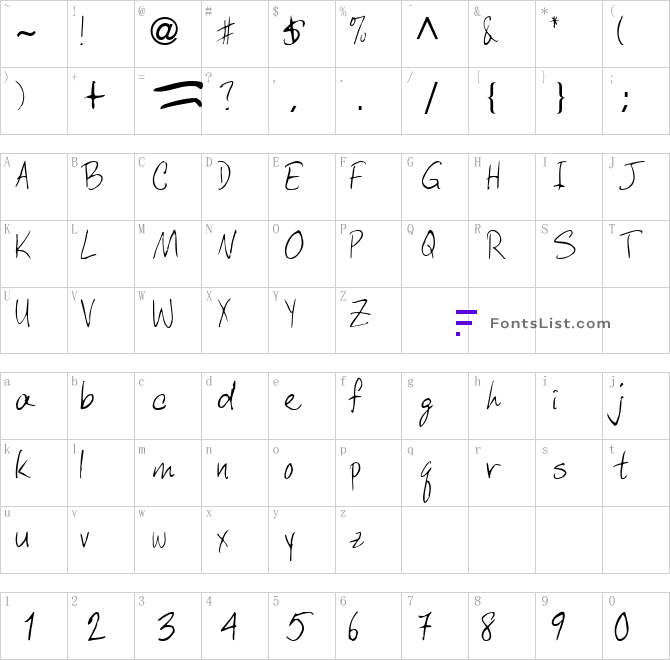
- Font Name:Abera ttnorm
Abera-Regular-ttnorm.ttf is a very beautiful artistic font, Abera-Regular-ttnorm.ttf is widely used in the design and printing of various books and pictures,Abera-Regular-ttnorm.ttf has a strong visual impact,Abera-Regular-ttnorm.ttf is a commonly used font in newspapers, magazines and books, and is used in posters, e-commerce Poster design, store design, logo design, font design and other fields.Abera-Regular-ttnorm.